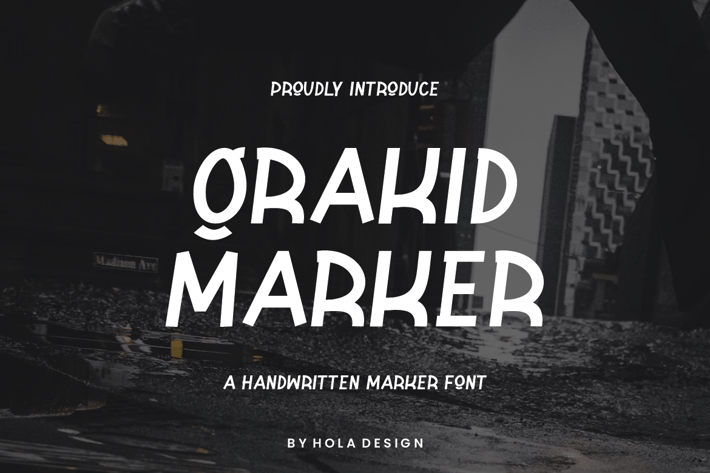
Grakid Marker - Handwritten Font
Grakid Marker - Handwritten Font Font is unique . Ready to use for your design like labeling, movie sceen, poster, movie title, gigs, album covers, logos, and much more.